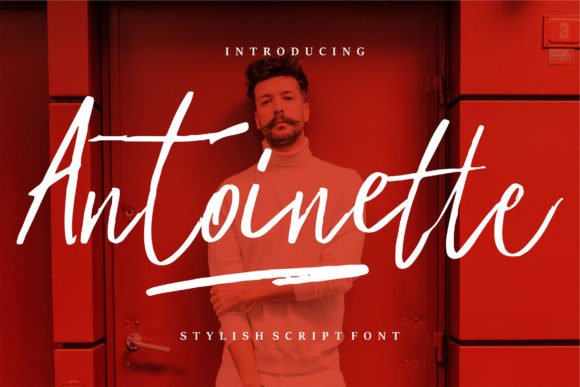
The Perfect Touch of Whimsy: Unveiling the Enchanting Antoinette Font
Have you ever been sitting at your desk, staring at a blank page, and suddenly a burst of creativity strikes? The words flow effortlessly, and you’re left with a design that’s nothing short of magical. For designers, moments like these are what make all the hard work worth it. And when you’re working on a project that requires a touch of romance and whimsy, there’s one font that’s sure to deliver: the Antoinette Font.
This beautiful handwritten font is more than just a pretty face – it’s a versatile script font that’s perfect for a wide range of applications, from greeting cards to headlines. Whether you’re working on a wedding invitation or a blog post, the Antoinette Font adds a touch of elegance and sophistication that’s hard to resist.
Antoinette Font Key Features
- Font Family: Antoinette, Antoinette Bold, Antoinette Italic, Antoinette Bold Italic
- Unique Characteristics: Elegant, cursive script font with a touch of luxury and sophistication, ideal for wedding invitations, formal events, and high-end branding
Review of Antoinette Font
Overall, I’d say the Antoinette Font is a beautiful, elegant choice for any design project. It’s perfect for creating a luxurious, high-end feel.
- The Antoinette Font is incredibly versatile and can be used for a wide range of design projects, from fashion to luxury branding.
- The font’s elegant, refined lines make it perfect for creating a sense of sophistication and glamour.
- The Antoinette Font is also highly customizable, allowing designers to tweak the style to fit their specific needs.
- The Antoinette Font may be too ornate for some designs, particularly those that require a more minimalist approach.
- The font can be difficult to read in smaller sizes, which may limit its use in certain applications.
The Antoinette Font is a beautiful, high-end choice for designers who want to create a sense of luxury and sophistication. While it may have some limitations, its versatility and customization options make it a great choice for the right project.
To get the most out of the Antoinette font, try pairing it with elegant graphics and soft colors to create a romantic and vintage look.
The Antoinette font is ideal for creating invitations, wedding stationery, and other elegant designs. It’s also suitable for use in branding and marketing materials that require a touch of sophistication.
Alternative Fonts to Antoinette Font
Carolyna Pro is a beautiful, elegant script font designed for luxury and high-end branding. It’s perfect for wedding invitations, luxury packaging, and any project that requires a touch of sophistication and glamour. Compared to Antoinette Font, Carolyna Pro has a more refined and delicate look, making it ideal for projects that require a softer, more feminine touch.
Great Vibes is a modern, elegant script font that’s perfect for any project that requires a touch of sophistication and playfulness. It’s great for branding, packaging, and advertising projects where you want to convey a sense of fun and excitement. Compared to Antoinette Font, Great Vibes has a more dynamic and energetic feel, making it ideal for projects that require a bolder, more attention-grabbing look.
Alex Brush is a beautiful, elegant script font designed for luxury and high-end branding. It’s perfect for wedding invitations, luxury packaging, and any project that requires a touch of sophistication and elegance. Compared to Antoinette Font, Alex Brush has a more refined and delicate look, making it ideal for projects that require a softer, more feminine touch.
Dancing Script is a beautiful, elegant script font that’s perfect for any project that requires a touch of sophistication and playfulness. It’s great for branding, packaging, and advertising projects where you want to convey a sense of fun and excitement. Compared to Antoinette Font, Dancing Script has a more dynamic and energetic feel, making it ideal for projects that require a bolder, more attention-grabbing look.